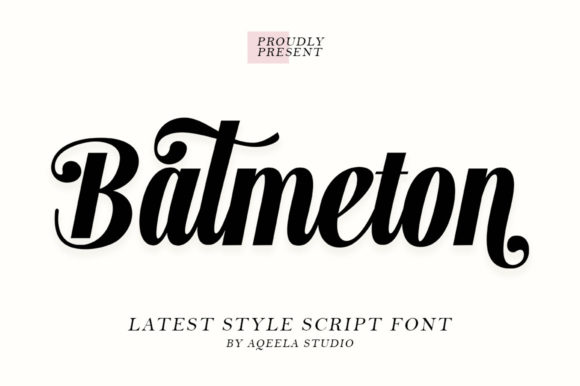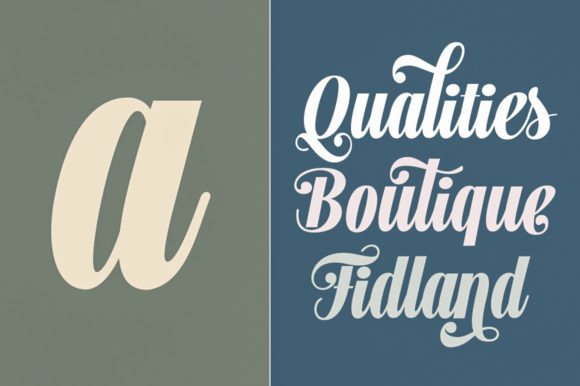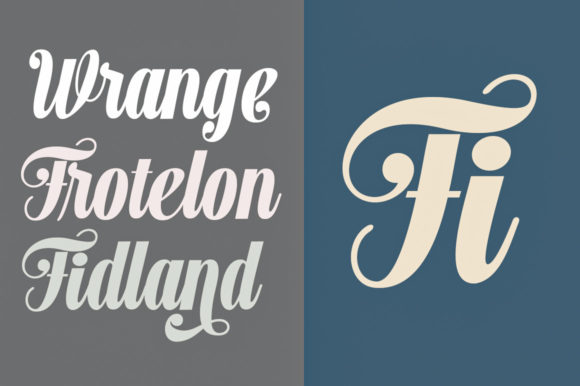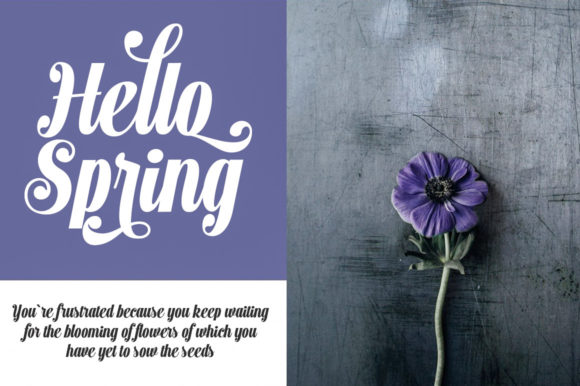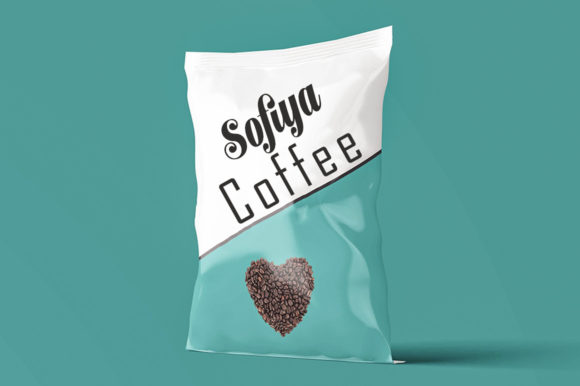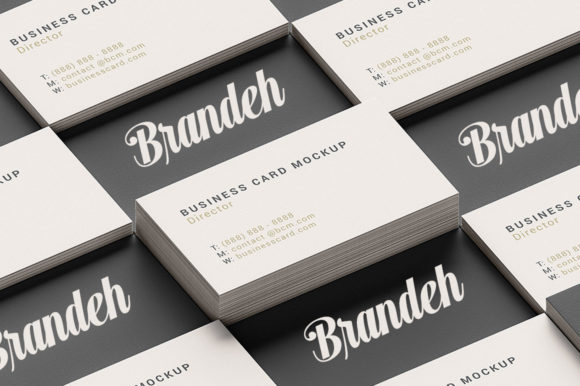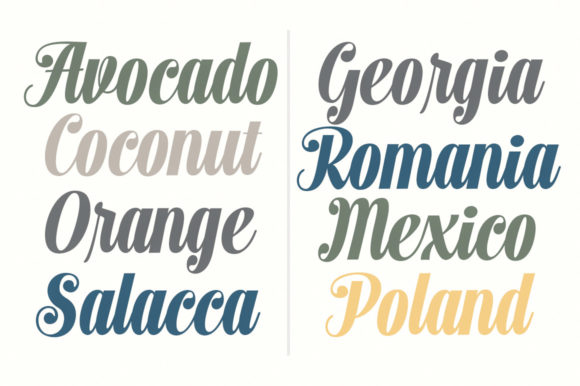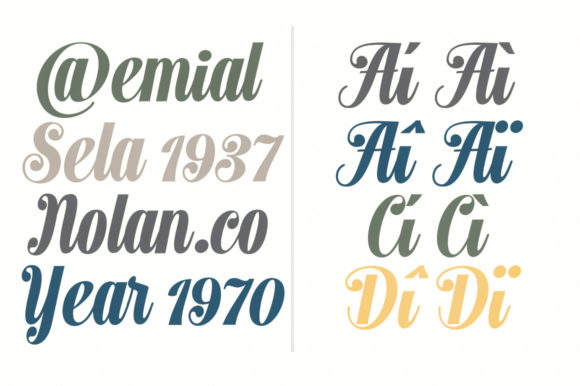
Batmeton Script Font
About Batmeton Script Font
“Batmeton Script” is a script font that exudes a sense of free-flowing elegance, specifically designed for a variety of applications such as packaging products, invitation cards, flyers, mockups, event posters, and more. It encompasses high-quality vibes that elevate any design.
The font’s free-flowing nature is evident in its script design, giving your projects a touch of effortless beauty and fluidity. It’s well-suited for a range of purposes, making it a versatile choice for designers seeking to enhance their creations with a graceful aesthetic.
“Batmeton Script” is particularly well-suited for packaging products, adding a touch of sophistication to labels, tags, and boxes. It also lends itself beautifully to invitation cards, infusing a sense of elegance and personal connection. Flyers and event posters benefit from its distinct character, captivating attention and conveying a sense of high-quality appeal.
The font’s balanced and well-crafted characters make it adaptable to a large design pool, ensuring its compatibility with various contexts and creative projects. Its versatile nature makes it an excellent choice for designers looking to add a touch of elegance and refinement to their work.
In essence, “Batmeton Script” is a font that brings a sense of flowing elegance and high-quality vibes to a wide array of design projects. Its versatility and balanced character make it an ideal choice for packaging, invitations, flyers, and more, enhancing the overall visual impact of your creations.